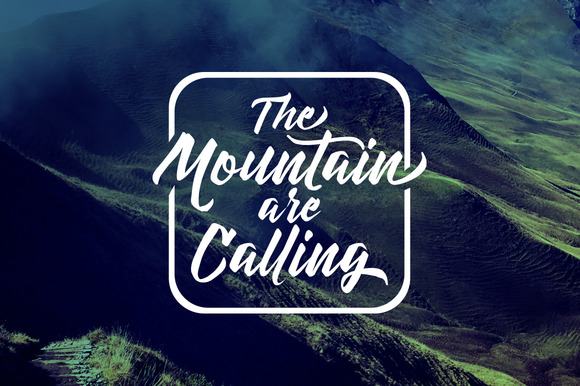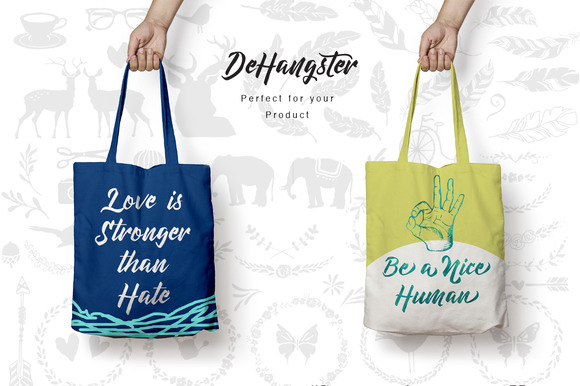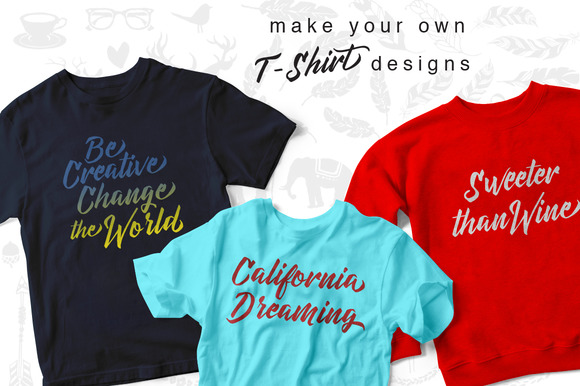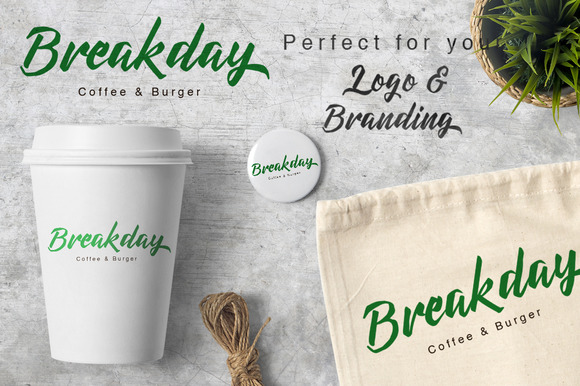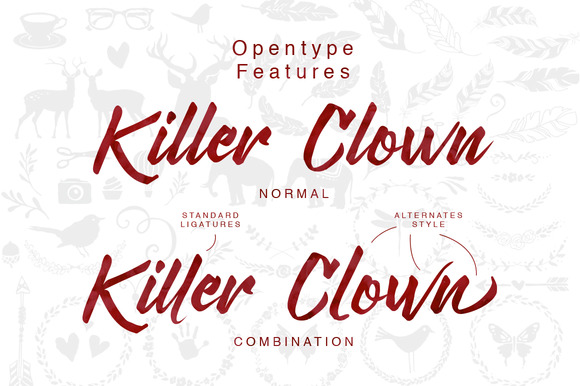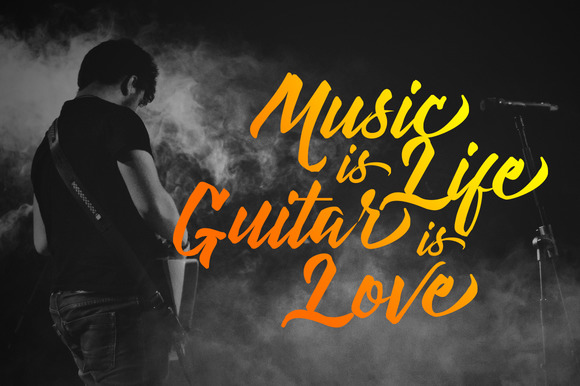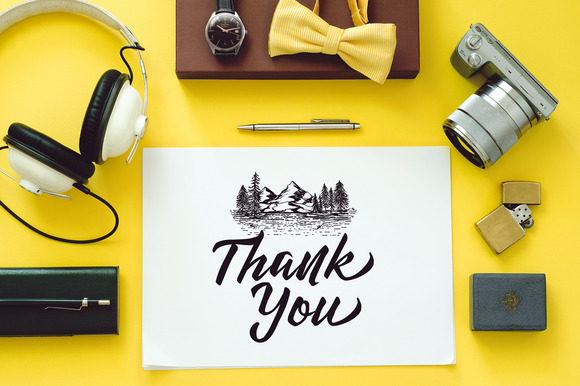
HomeScript FontsDeHangster Font Script Fonts DeHangster Font FacebookXPinterestWhatsApp DeHangster Font Poster 2 DeHangster Font Poster 3 DeHangster Font Poster 4 DeHangster Font Poster 5 DeHangster Font Poster 6 DeHangster Font Poster 7 DeHangster Font Poster 8 About DeHangster Font DeHangster Typeface is a beautiful hand brush script typeface with a natural look. DOWNLOAD ON CREATIVE FABRICAThis font is sold and delivered by Creative Fabrica. Font Canyon may earn a commission if you buy through this link. People also explored Pardner Holymonth Font Braytons Font Wonderffull Font Fabiolla Font Gentlewoman Font Hello Summer Font Jack Matras Font Serlina Font 308 0 TagsDeHangster Font Previous articleFalling Slowly FontNext articleBrillia Script Font LEAVE A REPLY Cancel reply Comment: Please enter your comment! Name:* Please enter your name here Email:* You have entered an incorrect email address! Please enter your email address here Website: Save my name, email, and website in this browser for the next time I comment. Personal Use Free 08 Underground Personal Use Free Read more about this font Hiters Personal Use Free Read more about this font Romansya Personal Use Free Read more about this font Cute Messy Personal Use Free Read more about this font BLOG Elegant Wedding Invitation Fonts – Handwritten & Script Fonts Elegant Wedding Invitation Fonts Your wedding day is one of the most important moments of your life, and every detail matters—including your invitation design. Our... Modern Sans-Serif Fonts That Brands Love in 2025 How to Install and Use Fonts on Windows, macOS, and Web Projects Exploring Font Trends